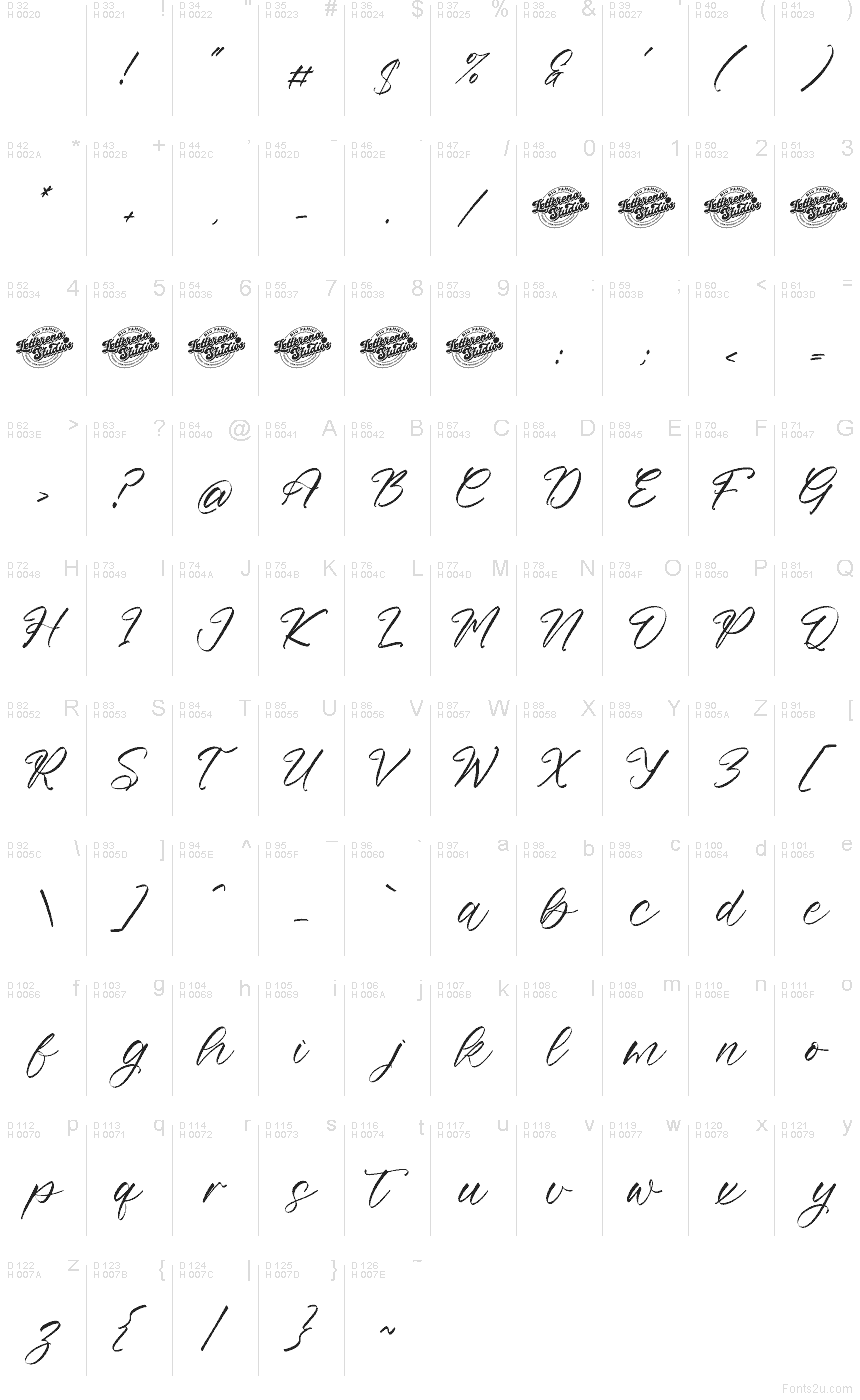
Morietta Garden DEMO VERSION Italic
Morietta Garden Italic font by Letterena Studios is a free handwritten script typeface that feels like ink brushed across fine stationery. Long, looping connections and airy spacing give every word a romantic, windswept motion, while the slim strokes keep it light instead of fussy. It has that effortless “signature” quality—elegant, feminine, and just a little wild around the edges.
Using Morietta Garden Italic, invitations and headings instantly take on a bespoke, calligraphed look without extra flourishes. This free font shines on wedding suites, save-the-dates, logos, packaging, quote graphics, and social media headers that call for a soft, personal touch. Pair it with a clean sans serif in small caps and keep Morietta Garden large for names, titles, and key phrases so its graceful rhythm really shows.